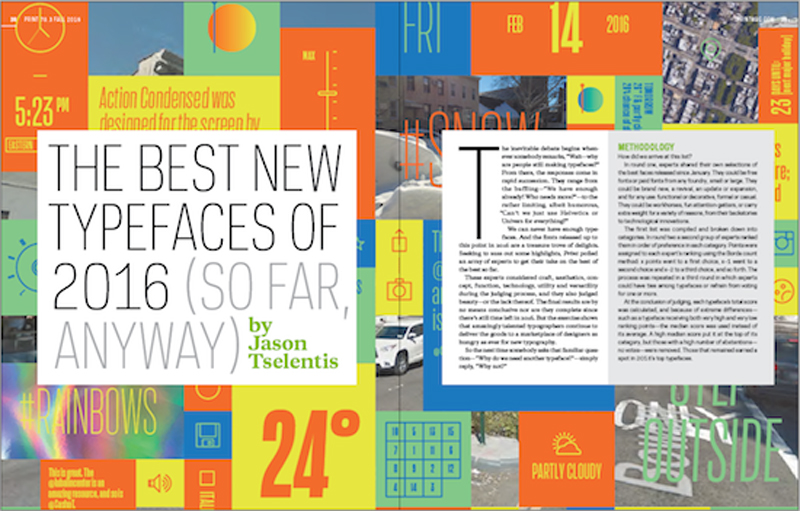
Bely: 7 Excellent New Typefaces
We are delighted to see Roxane Gataud's typeface Bely among Print’s 7 Excellent New Typefaces list and in such a good company.
According to Print magazine “Many experts gave Bely high marks, including Amy Papaelias, who wrote: My favorite thing about Bely is, of course, the extreme display weight. It exudes an air of confidence, whimsy and sophistication that says, IDGAF, although probably in French”.